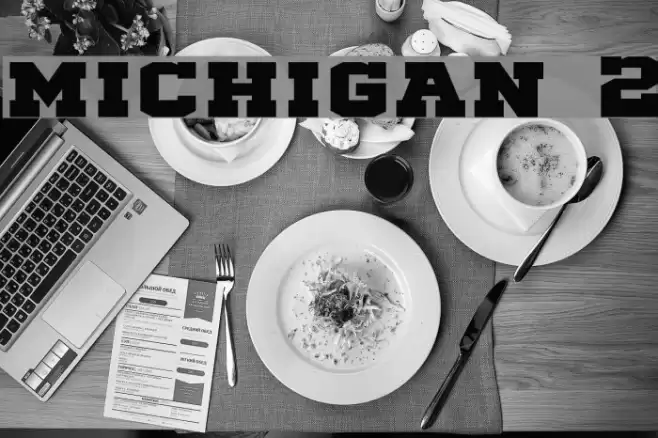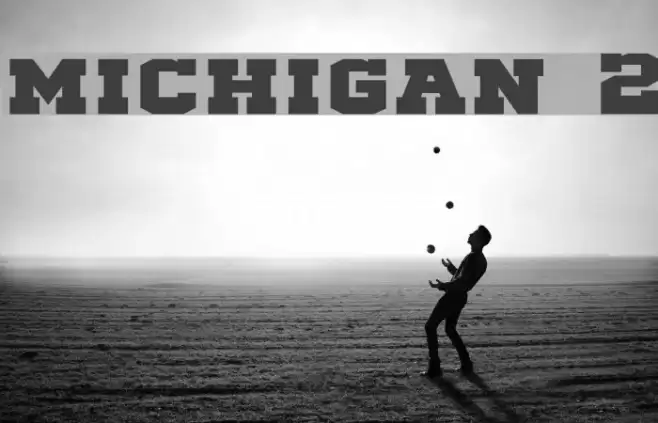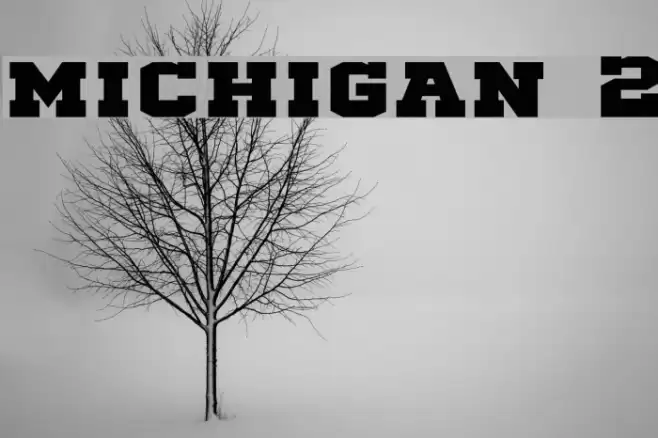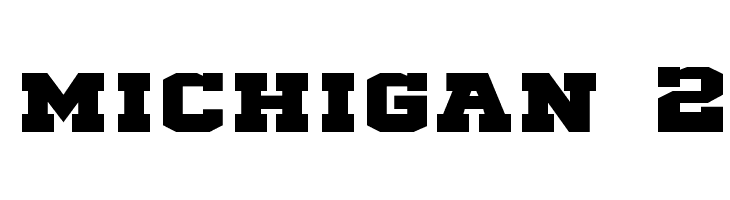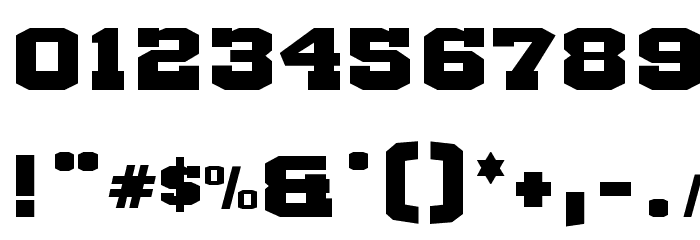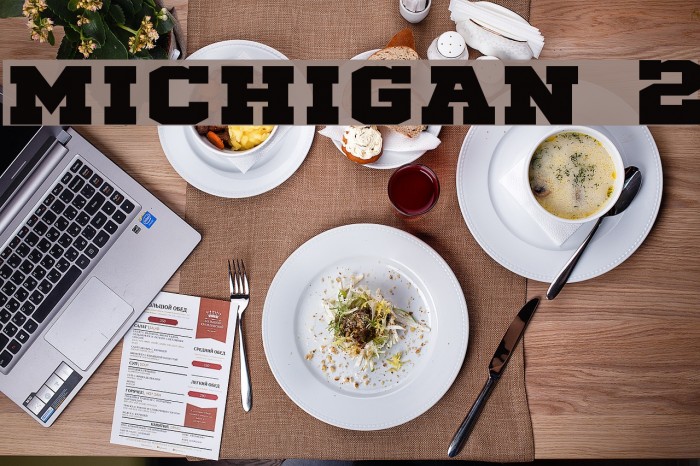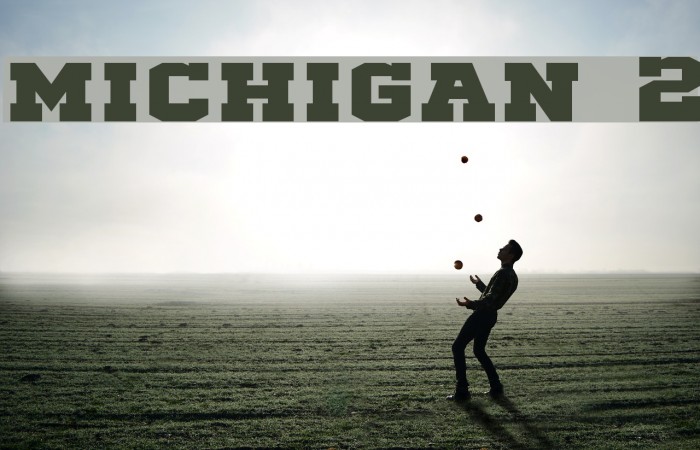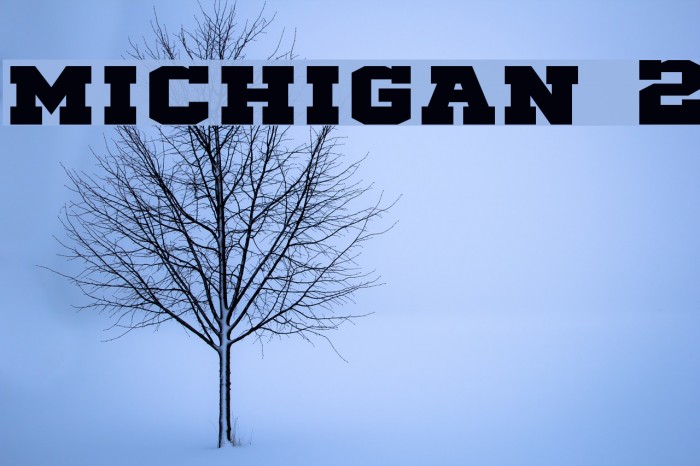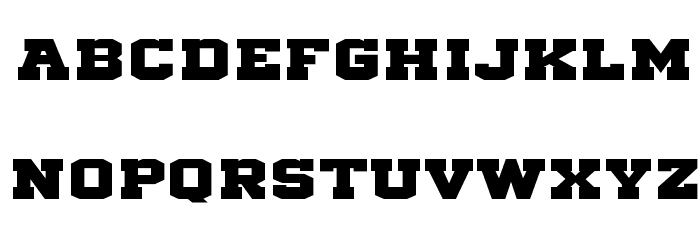
michigan 2 Font
michigan 2 Description
This font features bold, blocky characters with a strong, impactful presence. The letters are uniformly wide with a consistent stroke weight, giving them a solid and sturdy appearance. The angular edges and geometric shapes contribute to a modern and assertive style. The uppercase letters are particularly striking, with a uniform height that enhances readability. The numerals and special characters maintain the same boldness, ensuring consistency across all text elements. This font's design is ideal for making a statement, with its robust and commanding look.
A bold, blocky font with a strong, modern presence from Old fashioned fonts.
- Proposed Projects: Ideal for sports team branding, posters, headlines, and any project requiring a bold, impactful typeface.